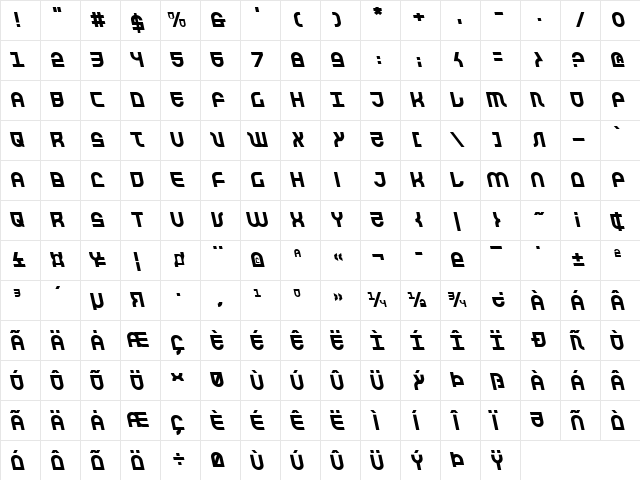
Trek Trooper Leftalic Italic
Design Context for Trek Trooper Leftalic Typeface
Trek Trooper Leftalic is a composed and adaptable typeface that performs quietly and consistently across a wide range of design contexts. Its italic angle brings a sense of urgency and motion to the letterforms.
Pro Tip: Use Trek Trooper Leftalic for emphasis, pull quotes, and subheadings where its slanted energy can add rhythm to the layout.